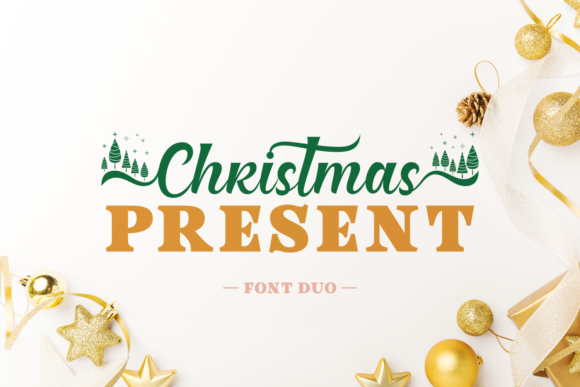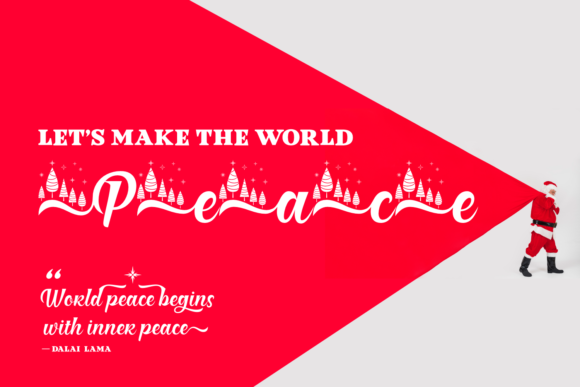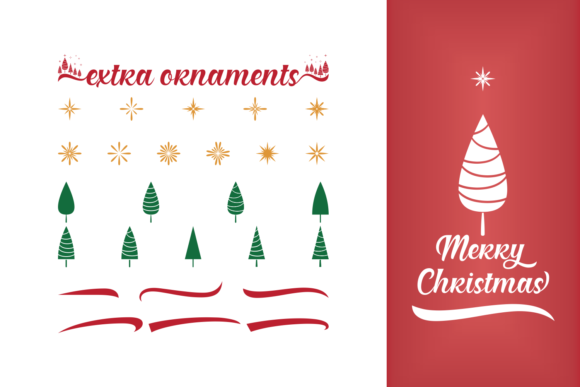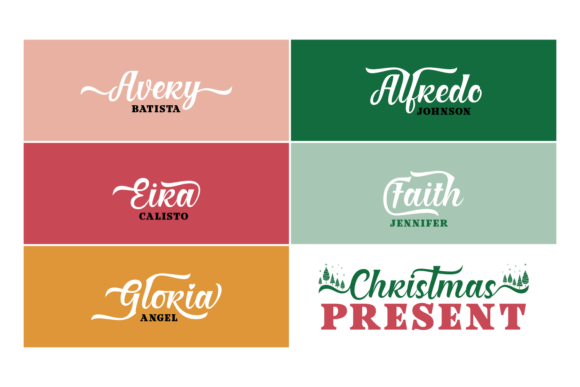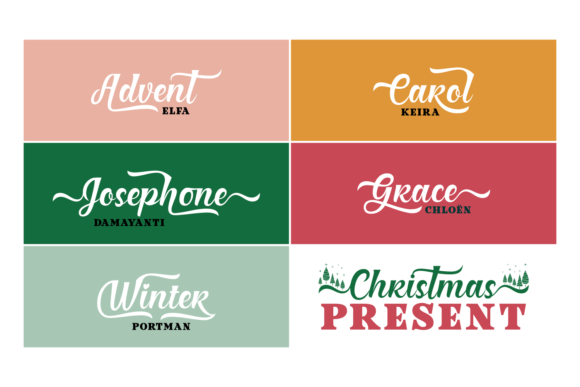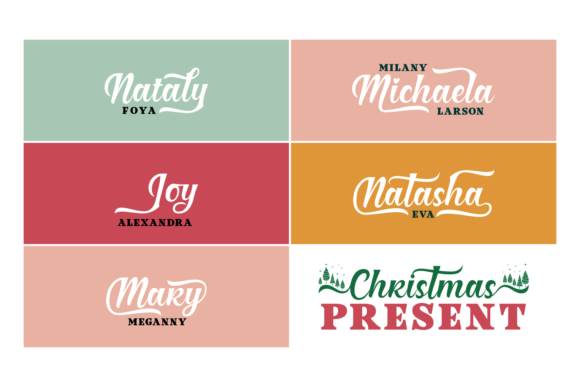
Christmas Present Duo Font
About Christmas Present Duo Font
The Christmas Present Duo is the perfect duo for the holidays.
Packed with stunning Christmas ornaments and swashes, this font is great for creating Christmas related designs, such as holidays greetings cards, Christmas dinner invites and more.